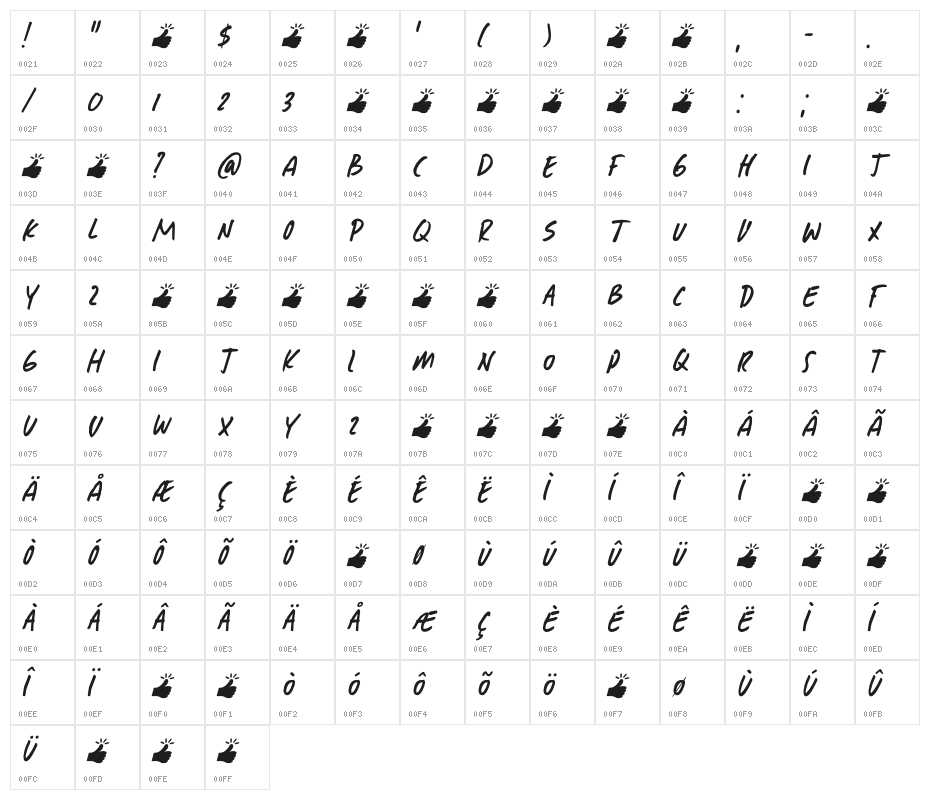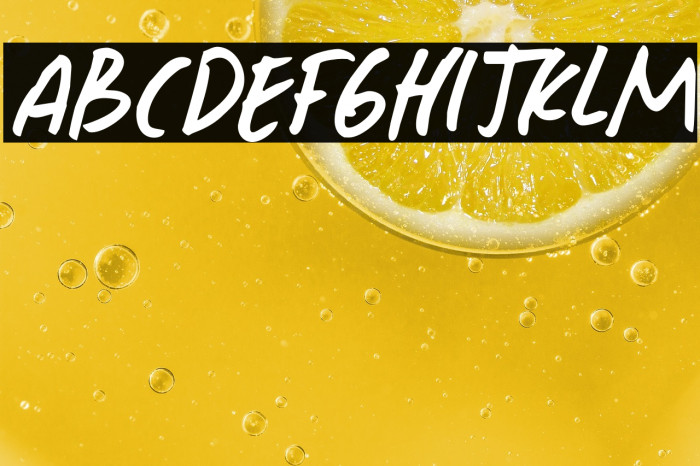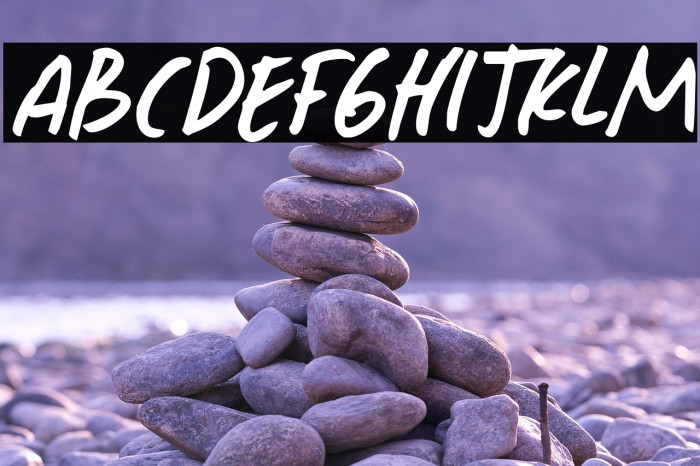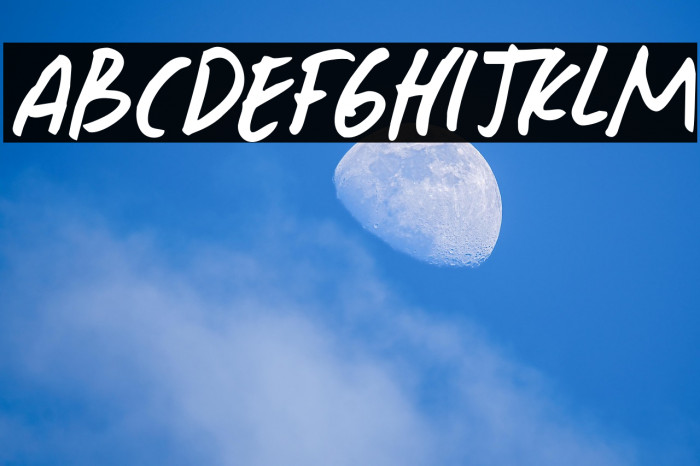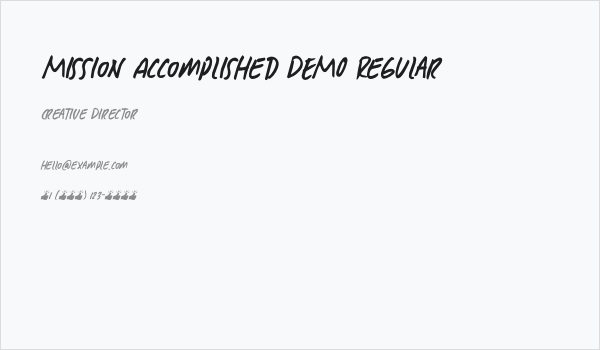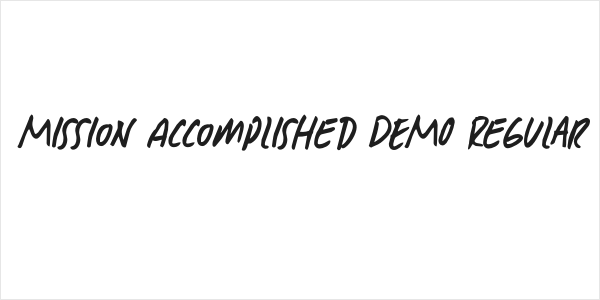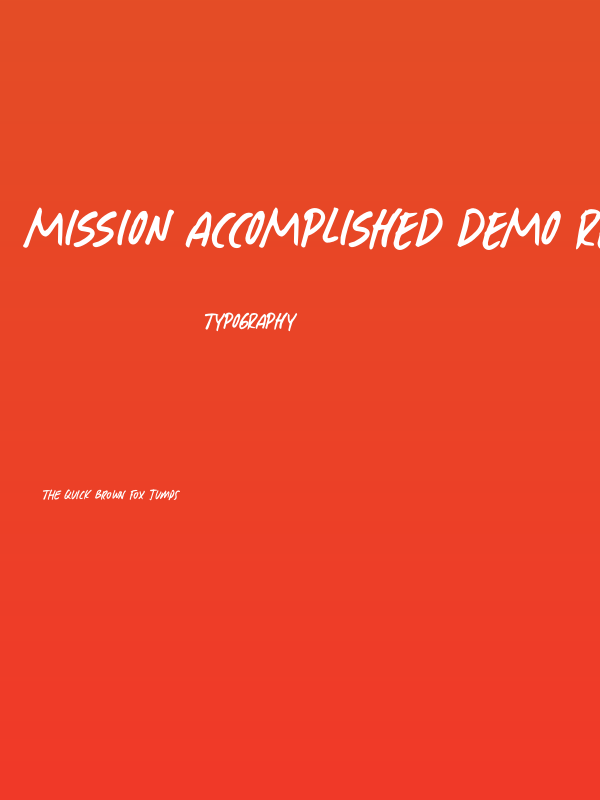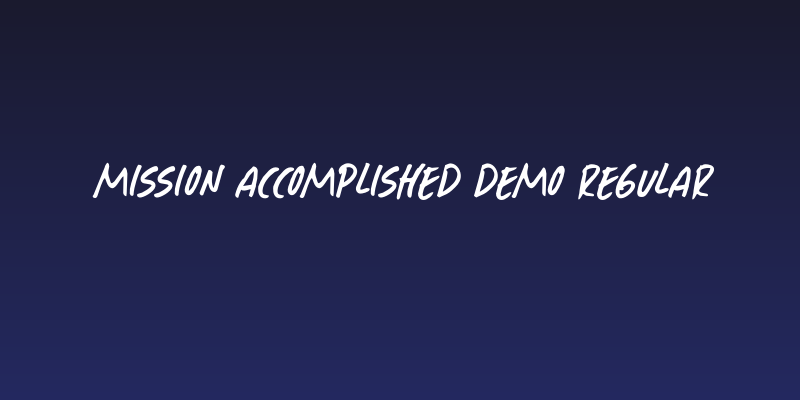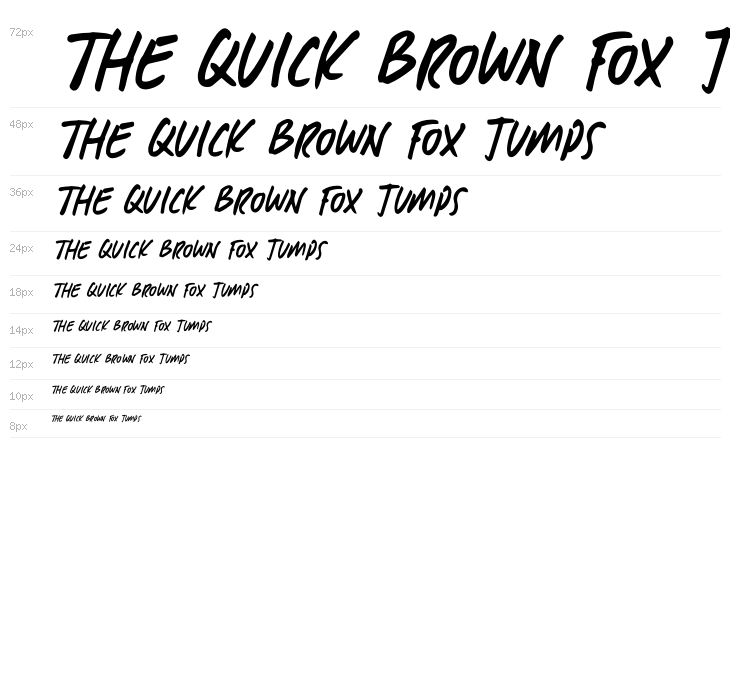
Mission Accomplished DEMO Regular Font
Mission Accomplished DEMO Regular Description
This font features a bold, handwritten style with a dynamic and energetic appearance. The characters are slightly slanted, giving a sense of motion and fluidity. The strokes are thick and consistent, providing a strong visual impact. The uppercase and lowercase letters maintain a cohesive look, while the numbers and special characters complement the overall design. The font's playful and informal nature makes it suitable for creative projects that require a personal touch.
| Proposed Projects | Ideal for posters, greeting cards, social media graphics, and branding materials that seek a personal and lively touch. |